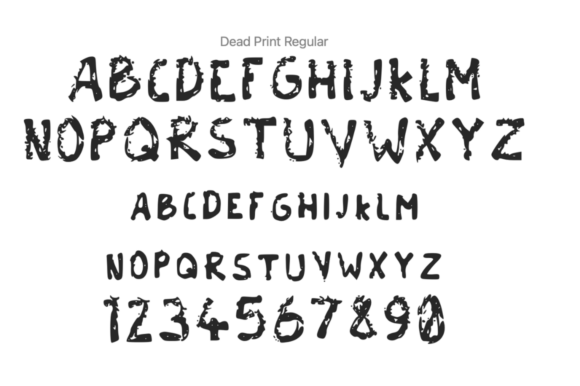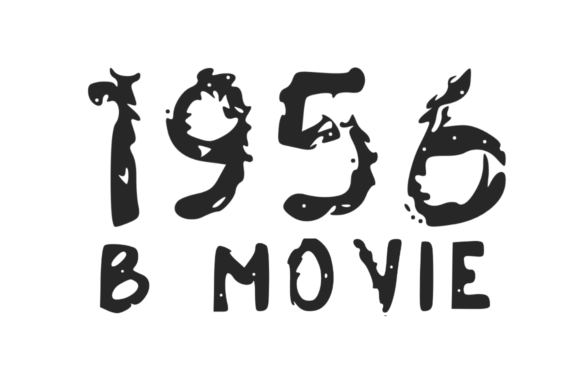
Introducing Dead Print Regular Font: The Ultimate Modern Display Font
Are you tired of using the same old fonts for your designs? Look no further! Dead Print Regular Font is here to revolutionize your typography game. This modern display font is perfect for creating bold, fun, and funky designs that will leave a lasting impression on your audience.
What is Dead Print Regular Font?
Dead Print Regular Font is a single bold weight font that is part of the larger Dead Print family. While it may seem limited as a single weight, the entire Dead Print family offers a versatile range of fonts that can help you achieve a wide range of design goals. With a massive array of glyphs at your disposal, you can mix and match different characters to create a truly unique look.
Key Features of Dead Print Regular Font
- Modern Display Font: Dead Print Regular Font is designed to make a statement. Its bold and edgy design makes it perfect for headlines, titles, and other display text.
- Bold and Funky: This font is not for the faint of heart. It’s designed to be bold and attention-grabbing, making it perfect for designs that need a bit of attitude.
- Massive Glyph Array: With a huge range of glyphs at your disposal, you can create complex and interesting designs that will set you apart from the crowd.
- Part of the Dead Print Family: While Dead Print Regular Font is a single bold weight, the entire Dead Print family offers a range of weights and styles to help you achieve a consistent look across your designs.
Who is Dead Print Regular Font for?
Dead Print Regular Font is perfect for designers and crafters who want to add a bit of edge to their designs. Whether you’re working on a branding project, a website, or a craft project, this font is sure to make a statement. Some potential users of Dead Print Regular Font include:
- Graphic Designers: If you’re looking for a bold and attention-grabbing font for your next design project, Dead Print Regular Font is a great choice.
- Web Designers: This font is perfect for creating bold and eye-catching headlines and titles for your website.
- Crafters: If you’re working on a craft project, such as making signs or other decorative items, Dead Print Regular Font can add a bit of personality and flair to your work.
- Use it as a Headline Font: Dead Print Regular Font is perfect for headlines and titles. Use it to grab attention and draw the eye.
- Experiment with Glyphs: With a massive array of glyphs at your disposal, don’t be afraid to experiment and try new things.
- Pair it with Other Fonts: Dead Print Regular Font can be paired with a range of other fonts to create a unique and interesting look.
Dead Print Regular Font is a modern display font that is perfect for designers and crafters who want to add a bit of edge to their designs. With its bold and funky design, massive glyph array, and versatility as part of the Dead Print family, this font is sure to make a statement. Whether you’re working on a graphic design project, a website, or a craft project, Dead Print Regular Font is a great choice.